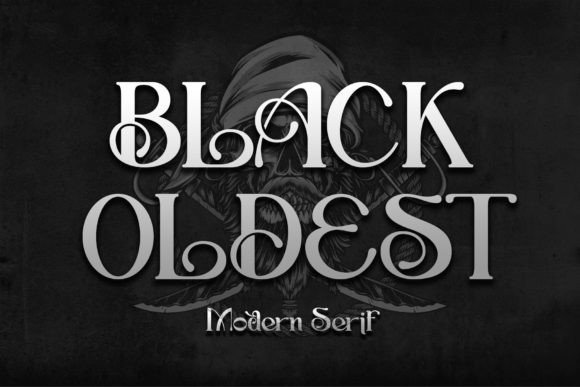
Welcome to the world of Black Oldest, a captivating serif font that effortlessly elevates your designs with its timeless allure and bold character. This meticulously crafted font is a fusion of style and boldness, perfect for discerning designers seeking to make a statement. Its neat and clean design makes it a versatile choice for a wide range of projects, from luxury logos and branding to classy editorial designs.
Unleash the boundless possibilities of Black Oldest and watch your designs soar to new heights of sophistication. Experiment with its alternates and ligatures, allowing you to create unique and eye-catching typography that will leave a lasting impression. Dive into a world of creativity as you explore the endless opportunities this font presents.
Black Oldest is the ideal companion for those seeking to create a strong corporate identity. Its timeless charm and bold presence make it the perfect choice for businesses looking to make a statement. Whether you're working on branding, packaging, posters, movies, or fashion promotions, Black Oldest will add a touch of elegance and grace to your projects.
This PUA-encoded font grants you access to a treasure trove of captivating glyphs, allowing you to add intricate details and flourishes to your designs. Elevate your art gallery branding with Black Oldest, and watch as your creations come to life with an air of sophistication and luxury.
Embrace the power of Black Oldest and see your designs transform into masterpieces of elegance and grace. Let this font ignite your creativity and take your projects to the next level. Experience the timeless allure of Black Oldest today and unlock the door to a world of design possibilities.